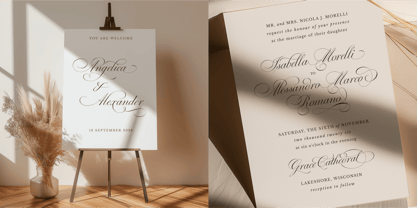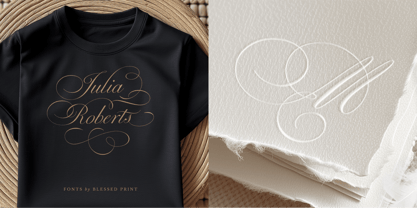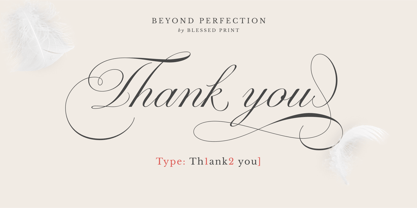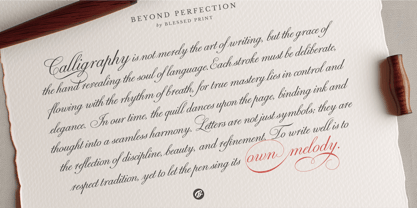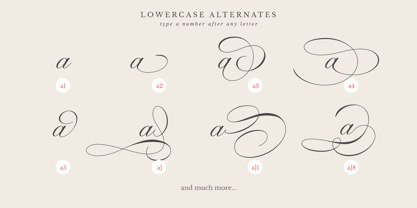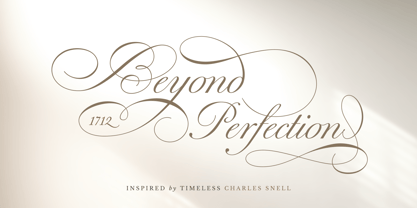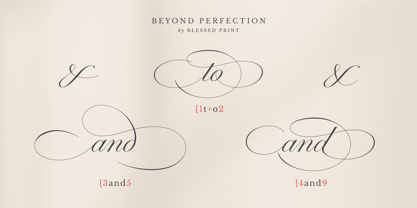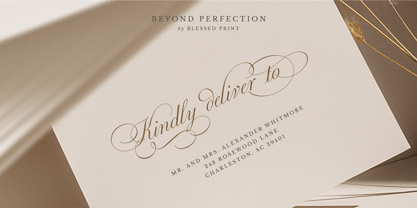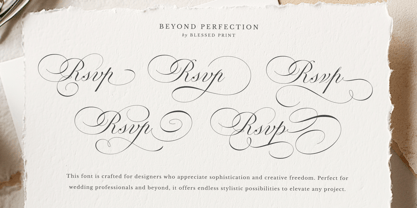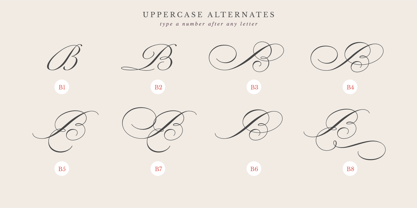
Beyong Perfection
by BlessedPrint
The Beyong Perfection Font Family was designed by Dmitrii Mikitenko and published by BlessedPrint. Beyong Perfection contains 3 styles and family package options.
Inspired by the timeless elegance of Charles Snell’s 18th-century handwriting, Beyond Perfection Script reimagines his graceful, sophisticated style for modern design needs while retaining its classic charm. This beautifully romantic script is perfect for creating unique wedding invitations, elegant signage, and sophisticated branding. If you loved my popular scripts Mozart and Juliette, Beyond Perfection will enchant you with its exquisite flourishes and creative possibilities.
Designers: Dmitrii Mikitenko
Publisher: BlessedPrint
Foundry: BlessedPrint
Design Owner: BlessedPrint